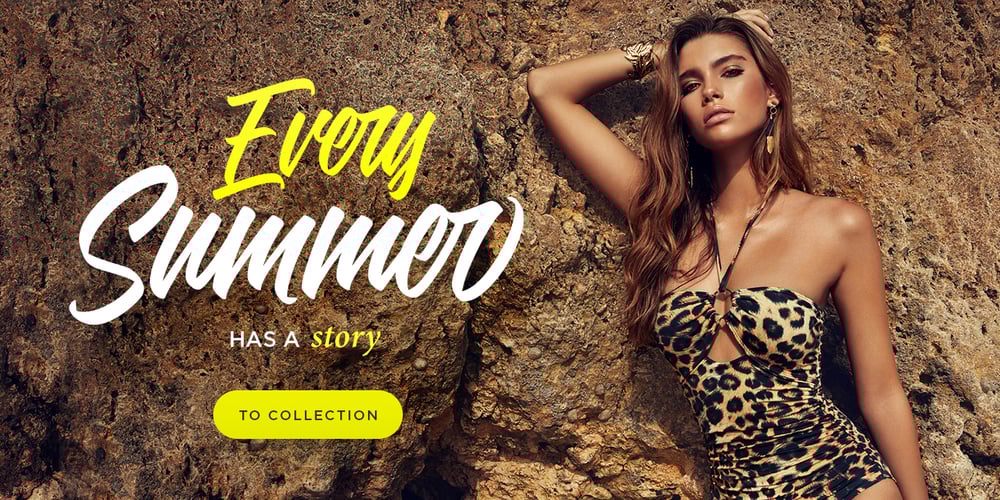
Adevale Font Family was designed by Anton Didenko and published by Kavoon. Adevale contains 1 styles and family package options. New! Adevale script – Script Adevale is font combines with the alternate character font to make each word unique. Then add the Name your company font as your tagline and — the ideal logo!